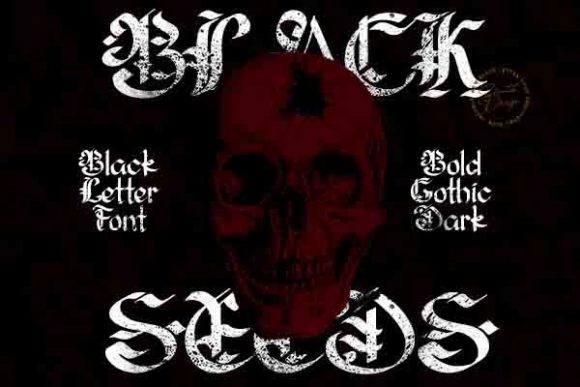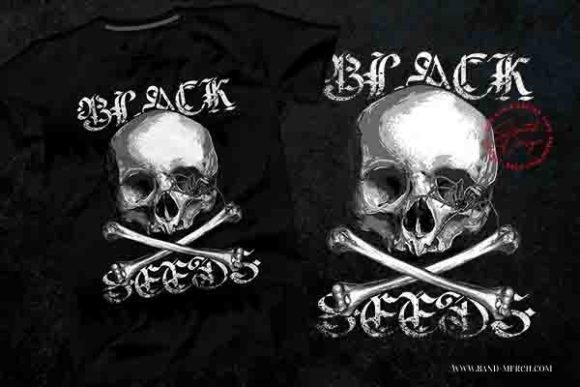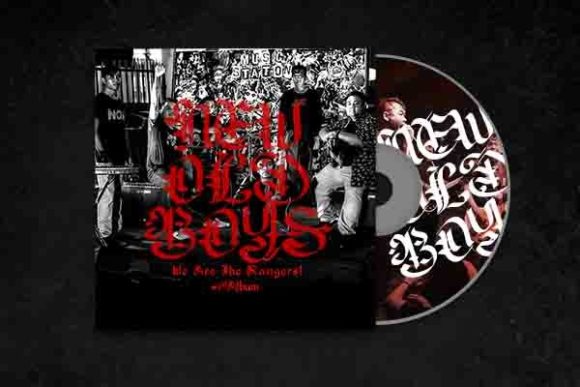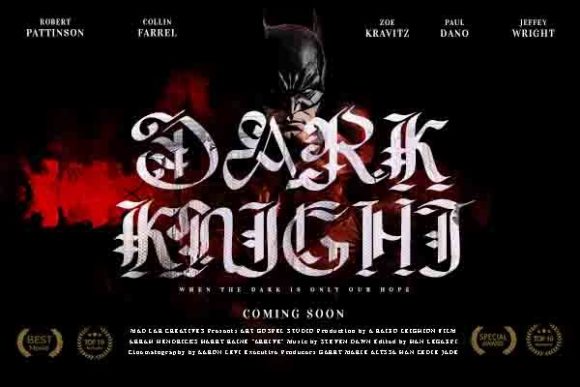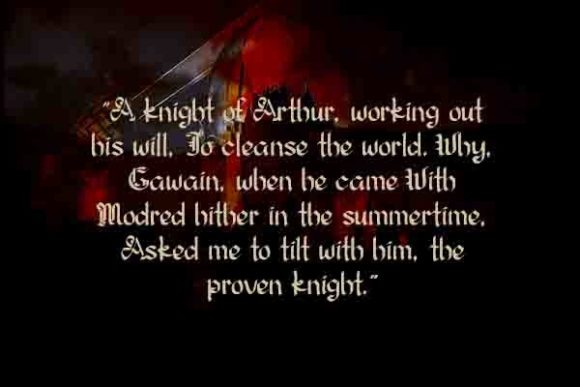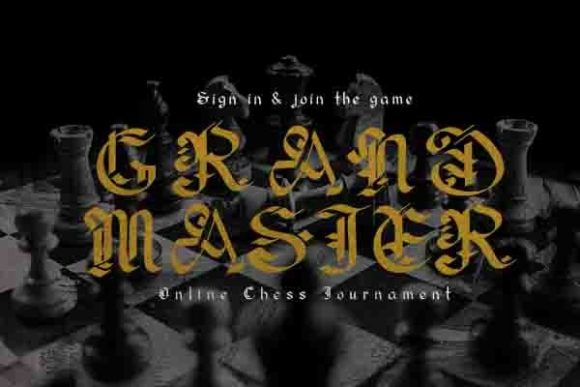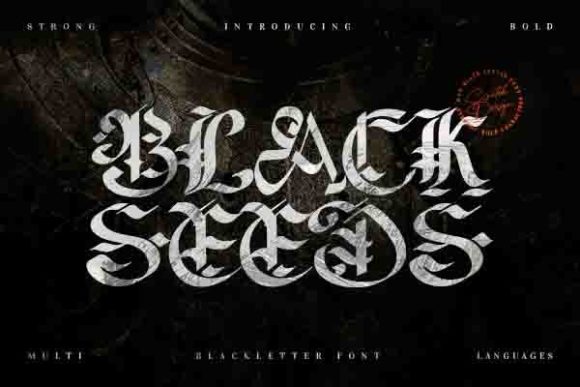
Introducing Blackseeds Font: A Timeless Blackletter Masterpiece
Are you a designer, crafty enthusiast, or typography aficionado searching for a font that exudes elegance, sophistication, and a touch of vintage charm? Look no further than Blackseeds Font, a stunning blackletter font that is sure to elevate your creative projects to new heights. In this article, we’ll dive into the world of Blackseeds, exploring its unique features, and why it’s a must-have addition to your font library.
The Art of Blackseeds Font
Blackseeds Font is a meticulously crafted, bold, and vintage-styled blackletter font that boasts intricate details and a distinctive character. Its creator has poured their heart and soul into designing a font that not only pays homage to traditional blackletter typography but also infuses it with a modern twist. The result is a font that is both nostalgic and fresh, perfect for a wide range of applications, from branding and advertising to crafting and scrapbooking.
What Makes Blackseeds Stand Out?
So, what sets Blackseeds apart from other fonts in its class? Here are a few key features that make it a standout:
• Highly Detailed Design: Blackseeds Font is characterized by its exceptional level of detail, with delicate flourishes and ornate letterforms that give it a truly unique appearance.
• Bold and Elegant: This font is not for the faint of heart. Blackseeds is a bold, statement-making font that demands attention and exudes confidence.
• Vintage Inspiration: Blackseeds draws inspiration from traditional blackletter fonts, but with a modern spin that makes it perfect for contemporary designs.
• Versatile: Whether you’re working on a logo, a poster, or a digital project, Blackseeds Font adapts seamlessly to any medium or style.
Why You Need Blackseeds in Your Font Library
As a designer or crafty enthusiast, you know that having the right font can make all the difference in the success of a project. Here are just a few reasons why Blackseeds Font deserves a spot in your font library:
• Enhance Your Creations: With Blackseeds, you can add a touch of sophistication and elegance to any project, ensuring it stands out from the crowd.
• Save Time: Instead of spending hours searching for the perfect font, Blackseeds offers a unique blend of style and versatility that can be used across multiple projects.
• Inspire Your Audience: The distinctive look of Blackseeds Font is sure to captivate your audience, leaving a lasting impression and setting your brand or project apart.
Using Blackseeds Font in Your Projects
Blackseeds Font is incredibly versatile and can be used in a variety of contexts, including:
• Branding and Logo Design: Create a memorable brand identity with Blackseeds’ bold and striking letterforms.
• Advertising and Marketing Materials: Use Blackseeds to create eye-catching posters, flyers, and brochures that demand attention.
• Crafting and Scrapbooking: Add a touch of elegance to your DIY projects, such as handmade cards, scrapbook pages, and journal entries.
• Digital Design: Incorporate Blackseeds into your digital projects, including website headers, social media graphics, and email newsletters.
Font Name Blackseeds Font
Author Scratch Design
In conclusion, Blackseeds Font is a remarkable blackletter font that offers a perfect blend of vintage charm, modern style, and versatility. Whether you’re a professional designer or a crafty enthusiast, Blackseeds is an invaluable addition to your font library, capable of elevating your projects to new heights. With its highly detailed design, bold and elegant appearance, and wide range of applications, Blackseeds Font is sure to become a go-to choice for anyone looking to add a touch of sophistication and elegance to their creations.